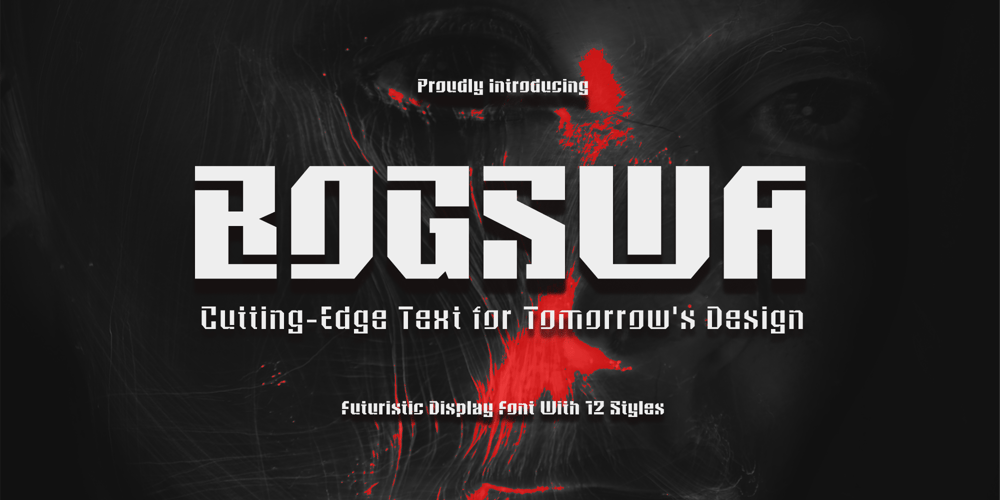
Bogswa Font Family was designed by Dede Kurniawan and published by Creatifont Studio. Bogswa contains 12 styles and family package options. Bogswa is a cutting-edge geometric typeface that injects a dose of futuristic style into your designs. Featuring sharp angles, clean lines, and a bold stencil aesthetic, Bogswa propels your projects into the future. What make’s Bogswa special is because of the Crisp angles and clean lines create a sense of modernity and technological advancement, The bold stencil style adds a touch of industrial edge and a unique visual texture, Customize your text and tailor it to your specific design needs with a staggering 12 different styles available.A SUMMARY OF WHAT’S INCLUDED: Standard Character A-Z, a-z, 0-9, Punctuation & symbols 12 Font Styles from Regular to Black with Italic styles in each weight Works on PC & Mac Simple installation Accessible in Adobe Creative Suite (Ai, Ps, Id, etc.) even work on Microsoft Word. PUA Encoded Characters – Fully accessible without additional design software. ————————————————-🌟If you come across any issues or notice anything we might have overlooked while using this product, please feel free to reach out to us. We greatly value your feedback as it helps us enhance and refine our products. Thank you!